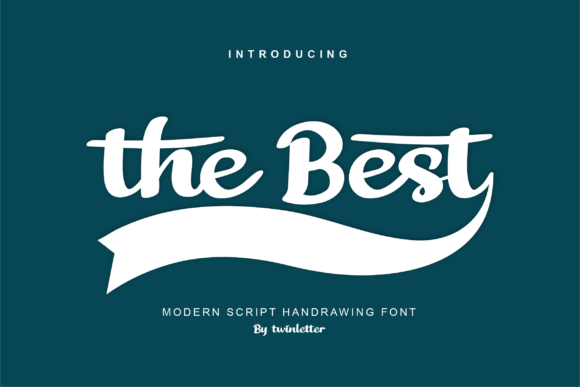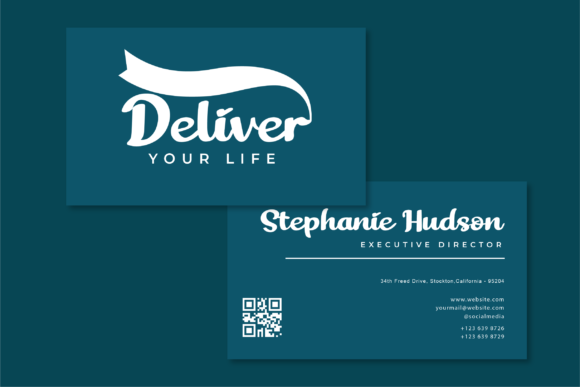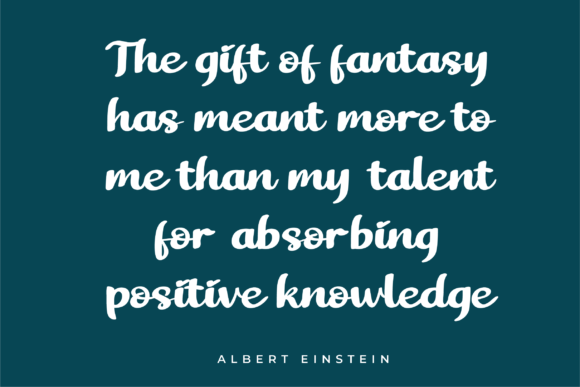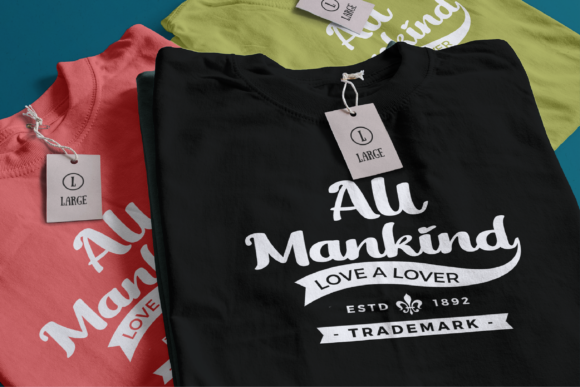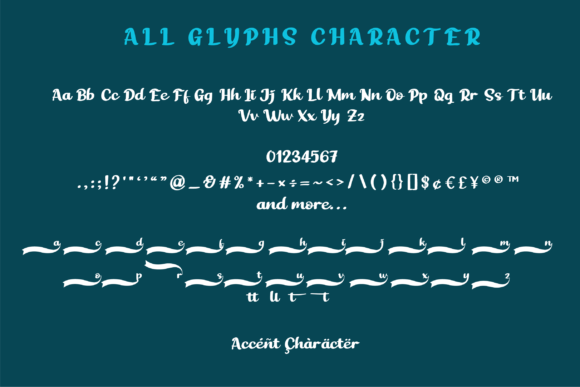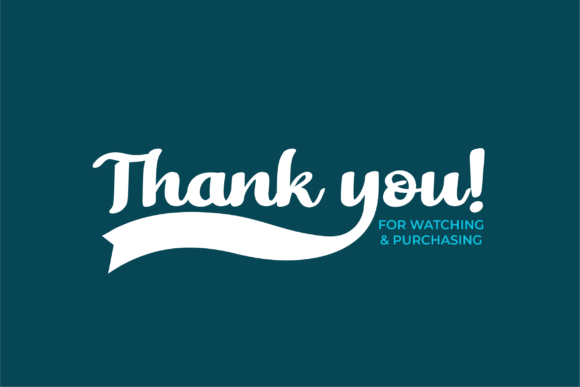
The Best Font
About The Best Font
The Best is a stylish and incredibly friendly handwritten font. Fall in love with its incredibly versatile style and use it to create gorgeous wedding invitations, beautiful stationary art, eye-catching social media posts, and much more!